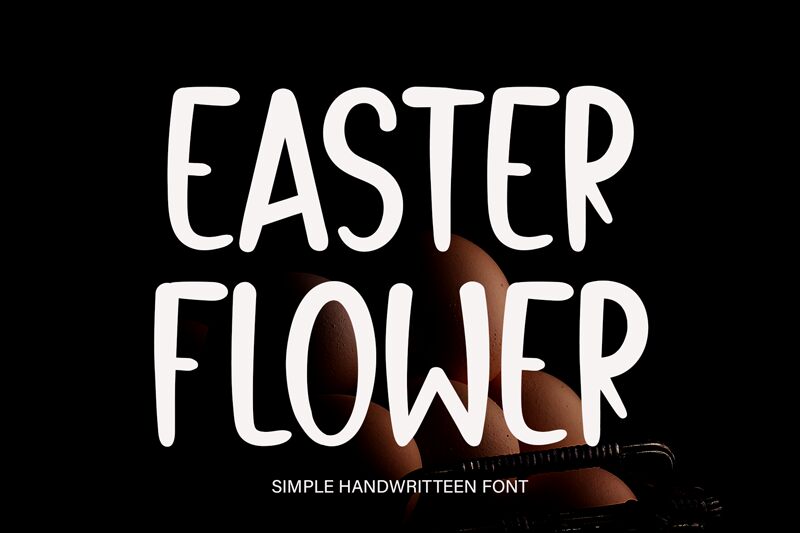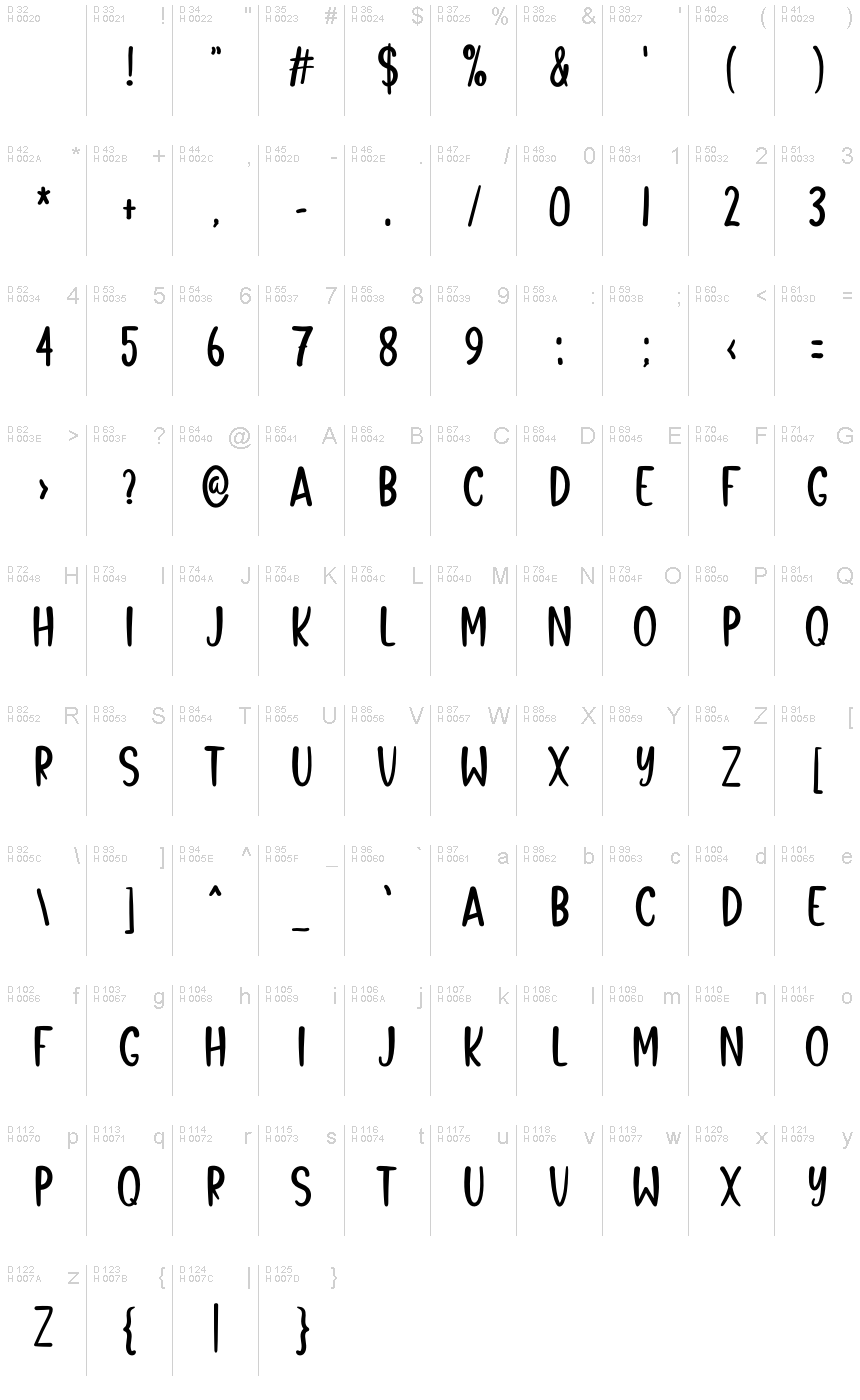
Easter Flower
Easter Flower font, designed by Etik Fatimah, is a beautifully crafted handwritten typeface that exudes charm and whimsy. Its distinctive style features elegantly condensed letterforms that lend a playful yet refined quality to any design. Each character flows with individuality, making it perfect for projects requiring a touch of personality.
Visually striking, Easter Flower captures attention while maintaining legibility, making it ideal for invitations, greeting cards, and branding that seeks to convey warmth and approachability. Its unique aesthetic accentuates creativity in crafting memorable messages across various platforms. Overall, Easter Flower infuses an authentic handcrafted appeal into all designs, bridging the gap between elegance and fun.